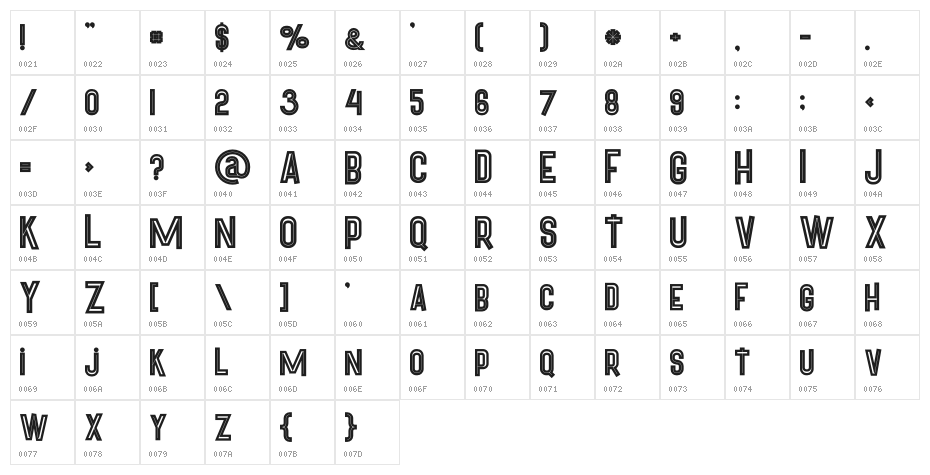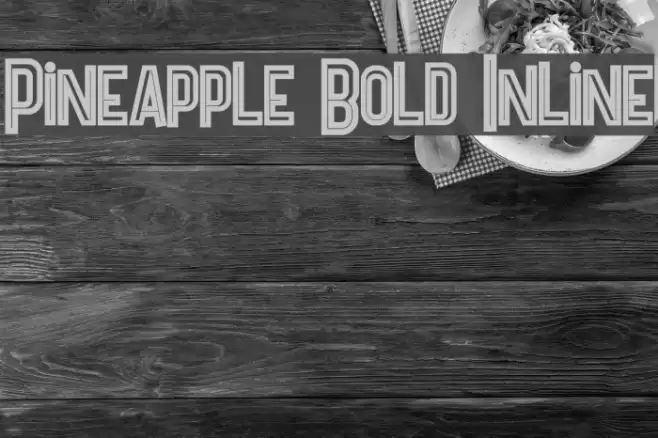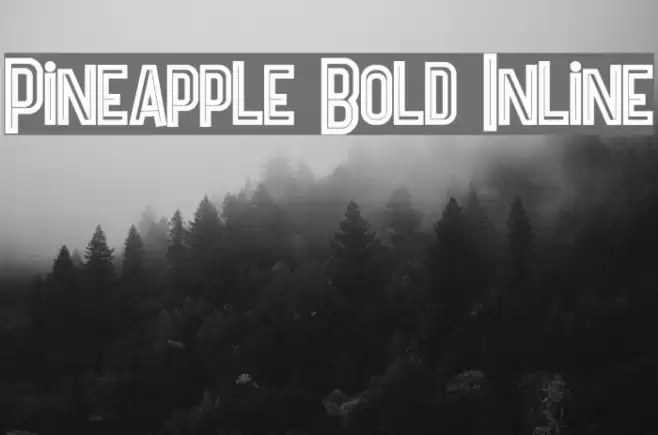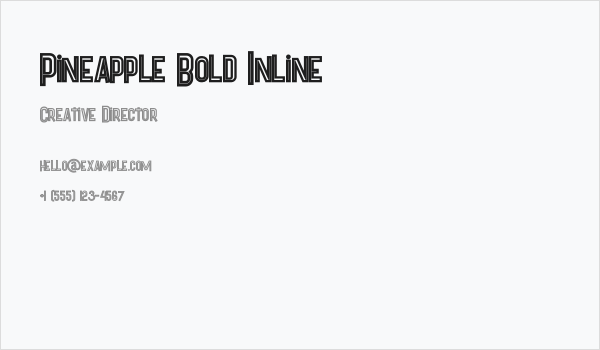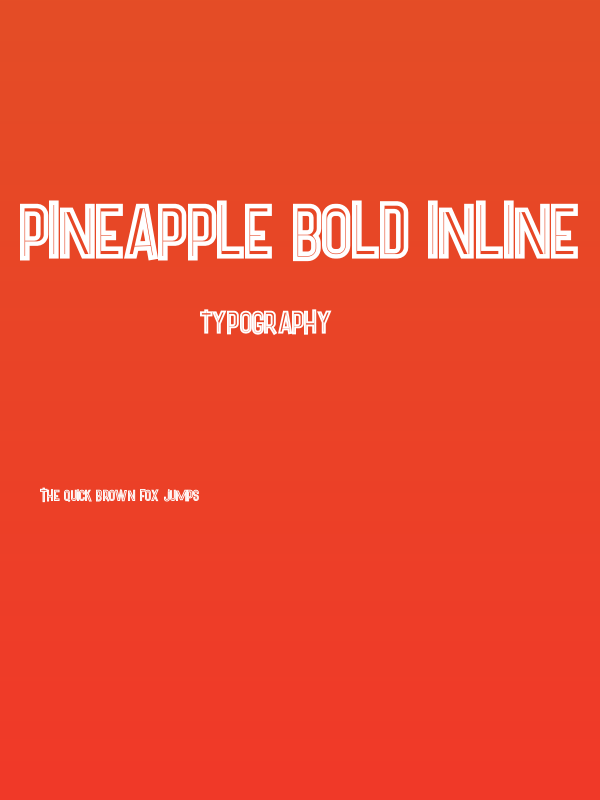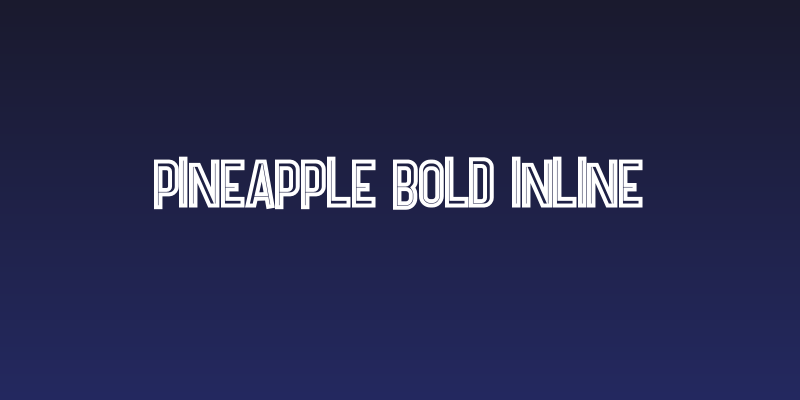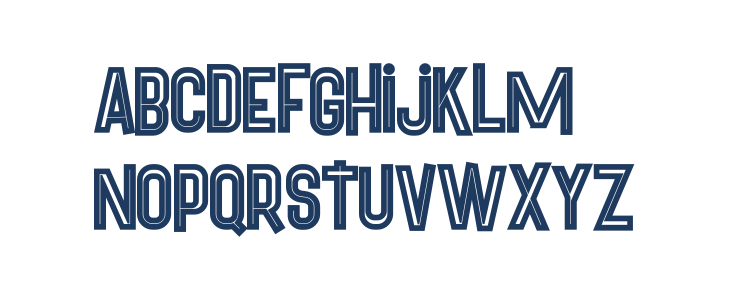
Pineapple Bold Inline Font
Pineapple Bold Inline Description
This font features a bold, inline style that combines a strong geometric structure with a playful, decorative touch. The uppercase and lowercase letters are designed with a consistent width and height, creating a uniform appearance. The inline detail adds a sense of depth and dimension, making the characters stand out. The numbers and special characters maintain the same bold and inline characteristics, ensuring a cohesive look across all elements. The font's design is modern and eye-catching, suitable for projects that require a bold statement.
| Proposed Projects | Ideal for headlines, posters, logos, and branding materials that need a bold and distinctive look. |